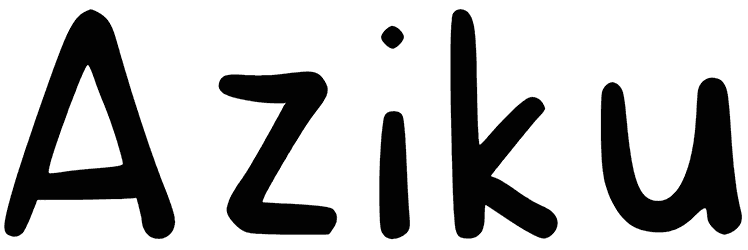
Aziku Font
Choosing the right letterform will play a key role in creating a unique sweet design, and this script font has the power to catch your eye. Aziku font can reflect a natural and cute vibe to your followers. So, if you are seeking such a visual, don’t miss this handwritten font because even without numbers and most punctuation marks, it will be cool for many designs.